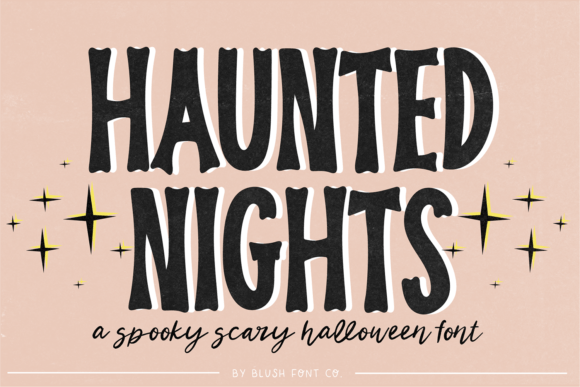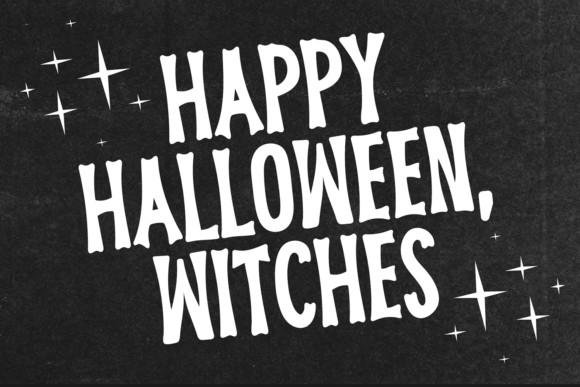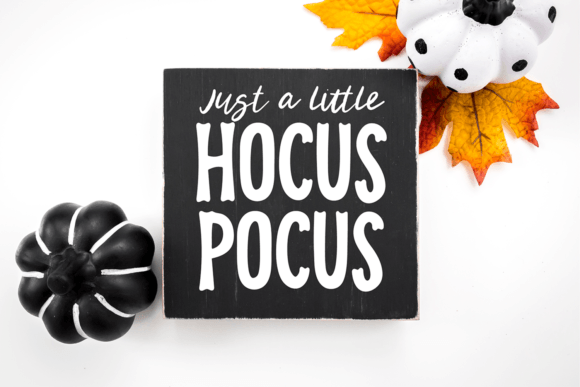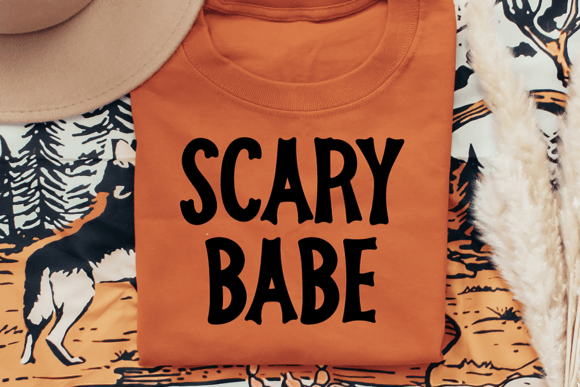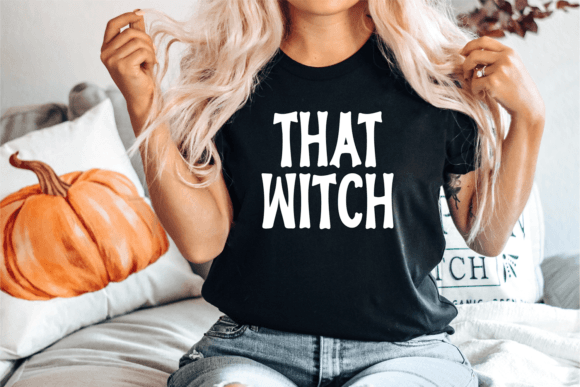
“Haunted Nights”
A Spooky Halloween Font
This is an installable font that will work great with your Halloween party invitations, web graphics, and other Halloween decor.